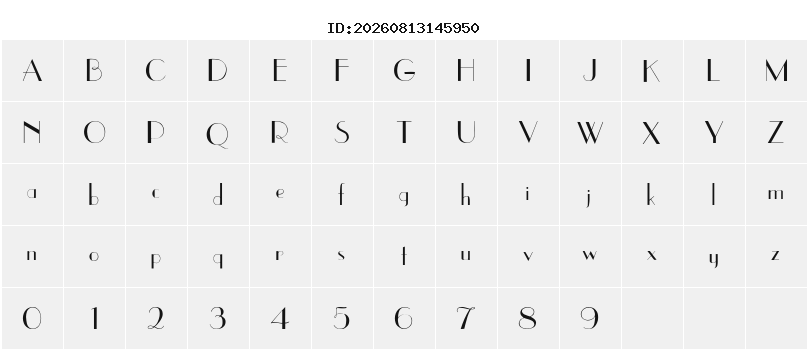
RSUpperEastSide Preview
About RSUpperEastSide.ttf
RSUpperEastSide.ttf is a modern, elegant sans-serif font designed for ultimate readability and visual harmony. Perfect for branding, headlines, web design, and print materials.